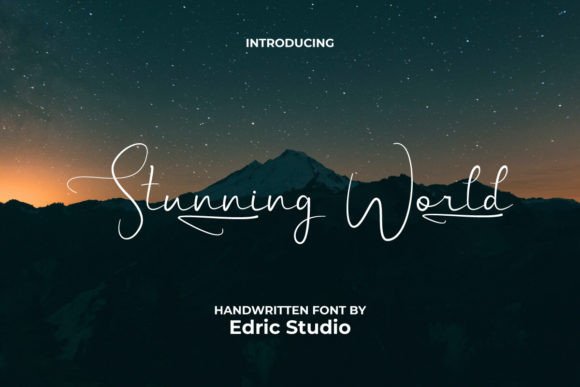
Step into a world of elegance and grace with the Stunning World Font, a captivating script font that adds a touch of refinement to any creative project. Designed by the talented EdricStudio, this font is a beautiful fusion of thin and stylish lines, making it the perfect choice for a wide range of industries seeking an enchanting touch.
Unleash the allure of the Stunning World Font in your wedding invitations, crafting a truly unforgettable experience for your special day. This font's delicate strokes and graceful curves effortlessly evoke a sense of romance and joy, leaving a lasting impression on your guests. Its thin lines lend a touch of understated elegance, while the stylish design adds a modern twist, ensuring your invitations stand out.
For fashionistas and boutique owners, the Stunning World Font is a fashion-forward choice that exudes sophistication and style. Its slender lines convey a sense of luxury and exclusivity, perfectly capturing the essence of your brand. Showcase your latest collections with panache, using this font to create captivating posters, flyers, and social media campaigns that will leave your audience spellbound.
Event planners, elevate your designs with the Stunning World Font, transforming ordinary occasions into extraordinary affairs. This font adds a touch of elegance to event signage, programs, and menus, creating a cohesive and visually captivating experience for your clients. Its thin lines and stylish design effortlessly set the tone for a memorable event, whether it's a grand celebration or an intimate gathering.
Florists and cake shops, add a touch of enchantment to your creations with the Stunning World Font. This font's delicate strokes and graceful curves perfectly complement the beauty of flowers and pastries, creating a sense of artistry and allure. Design captivating signage, labels, and packaging that will make your products irresistible to customers. Whether it's a blooming bouquet or a decadent cake, the Stunning World Font will elevate your offerings, making them truly special.
Jewelers and photography studios, capture the essence of beauty and luxury with the Stunning World Font. Its thin lines and stylish design lend a touch of elegance to your marketing materials, creating a lasting impression on potential clients. Showcase your exquisite jewelry pieces or stunning photographs with captivating posters, brochures, and online galleries that exude sophistication and glamour. This font will captivate your audience and leave them longing for more.
Travel agents and spa owners, transport your customers to a world of relaxation and tranquility with the Stunning World Font. This font's delicate strokes and graceful curves evoke a sense of serenity and calm, making it the perfect choice for creating promotional materials that inspire wanderlust and rejuvenation. Design brochures, flyers, and social media posts that capture the essence of your services, inviting customers to escape the everyday and immerse themselves in a world of luxury and well-being.